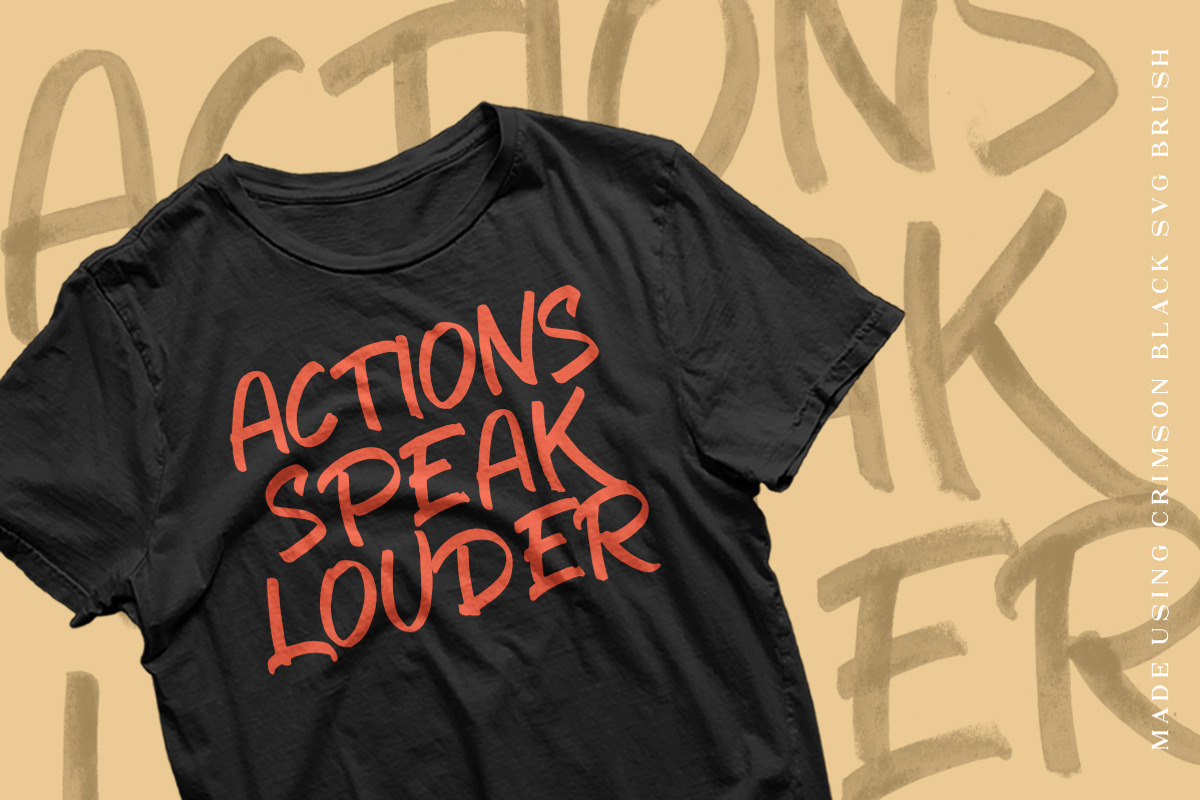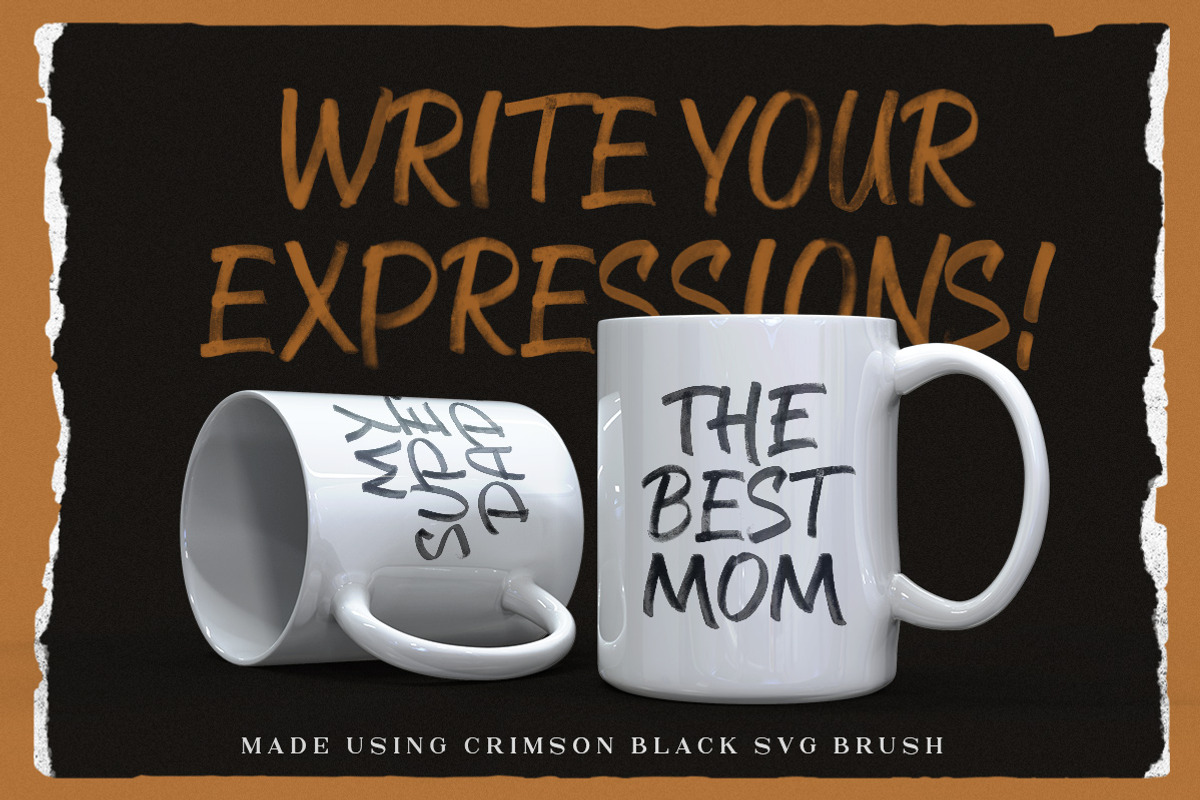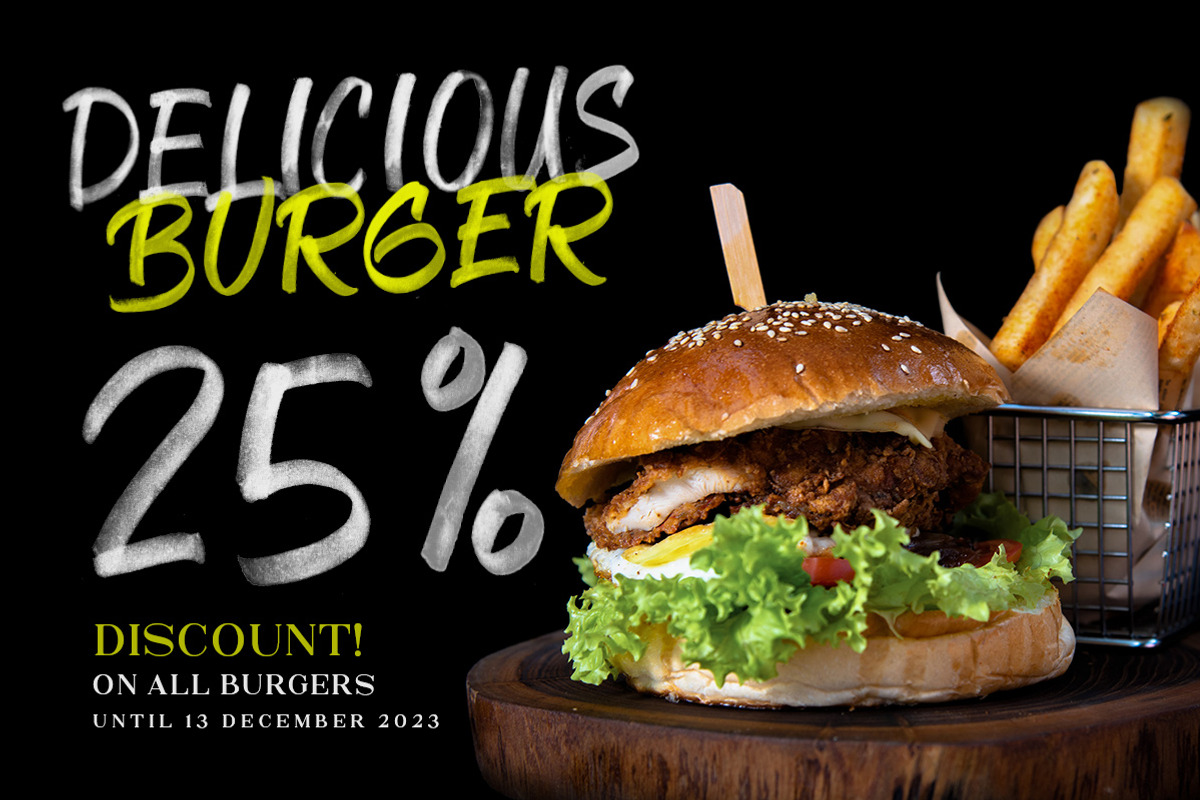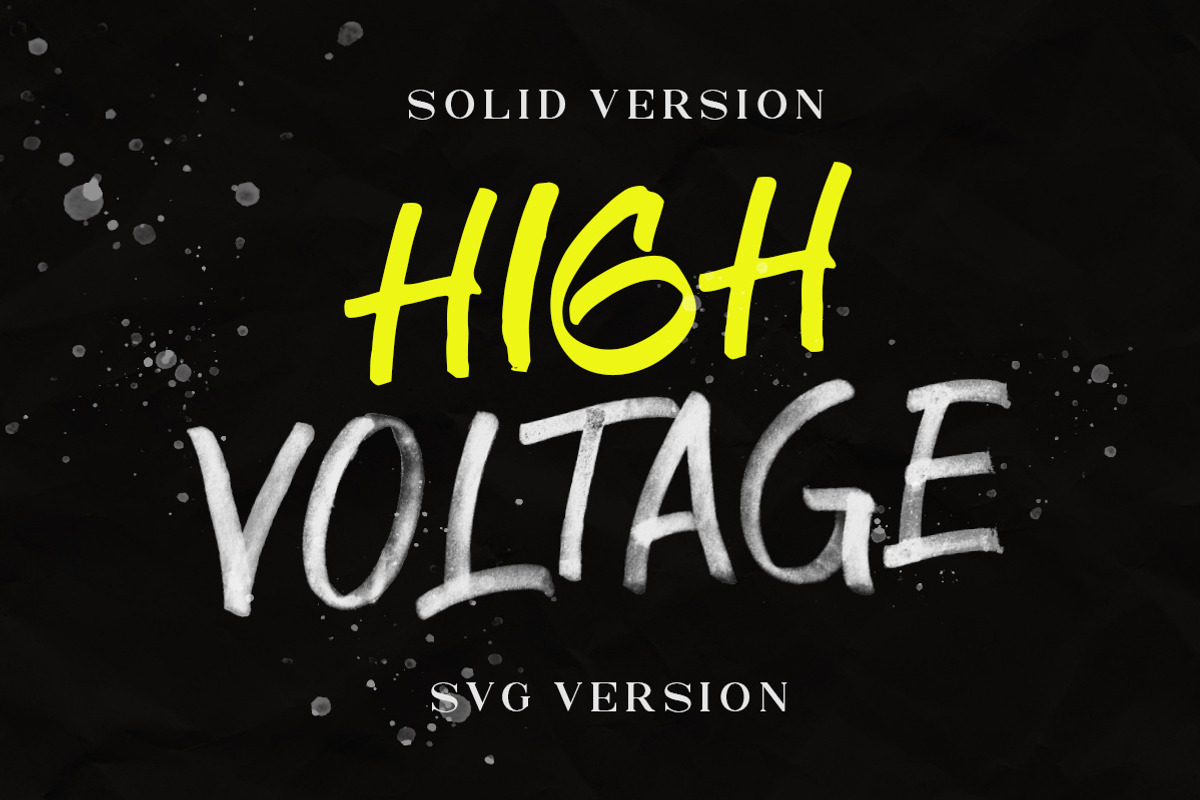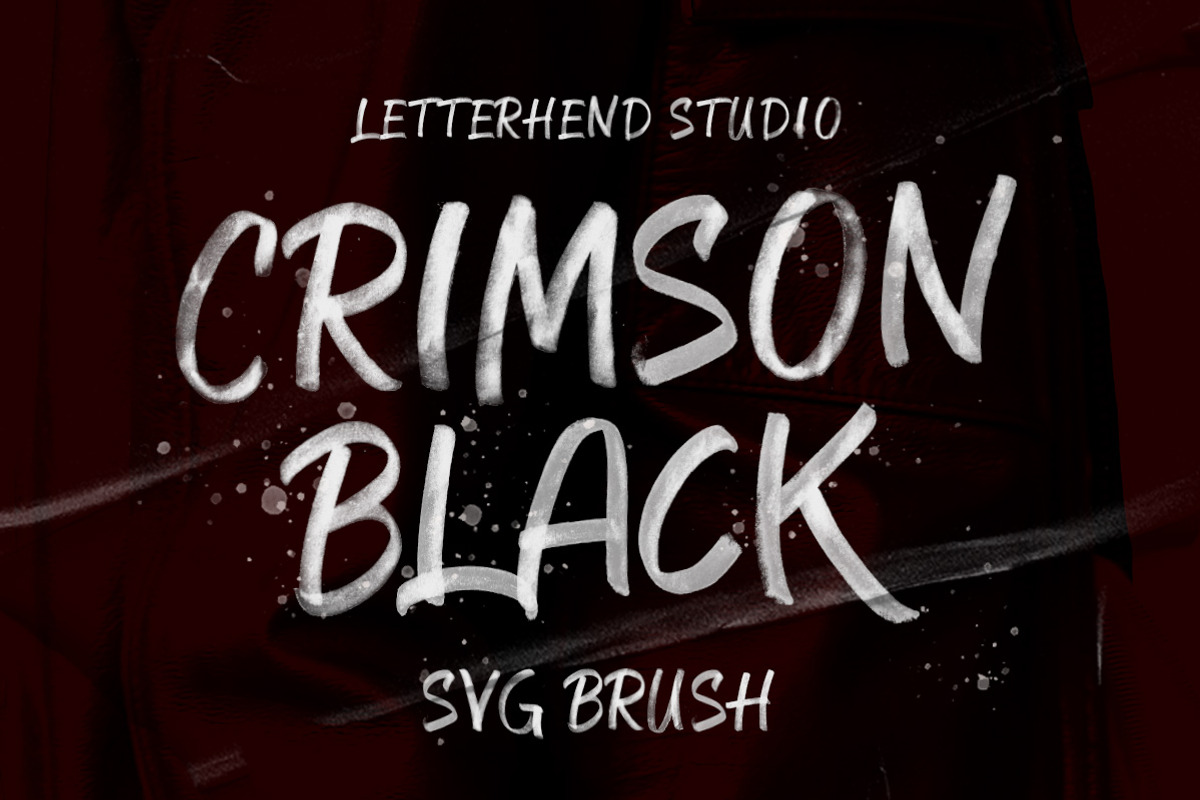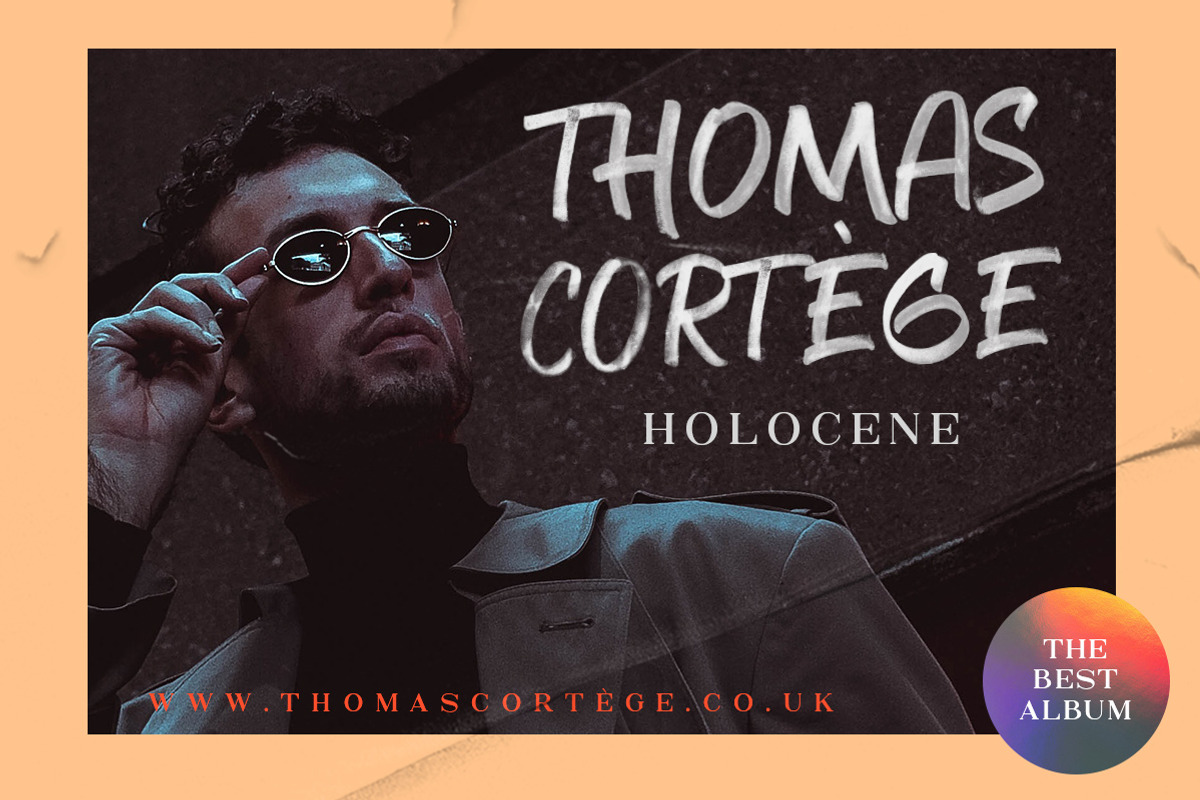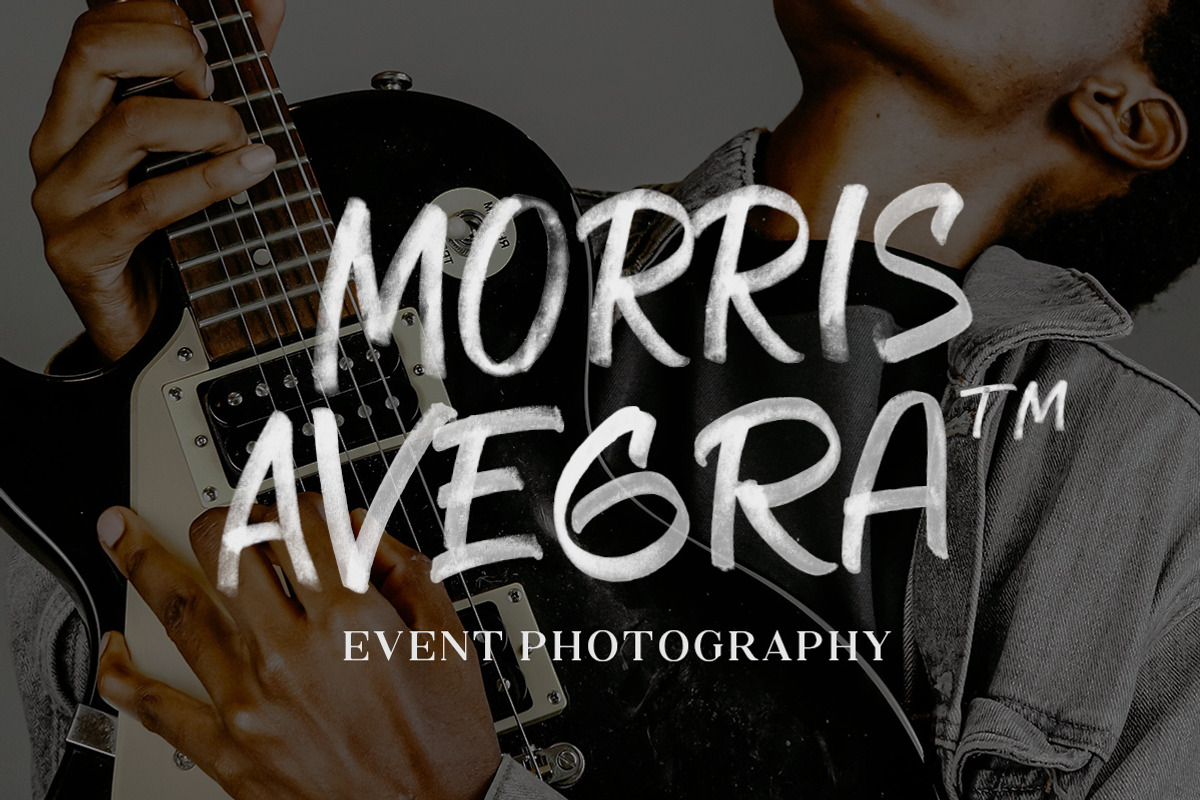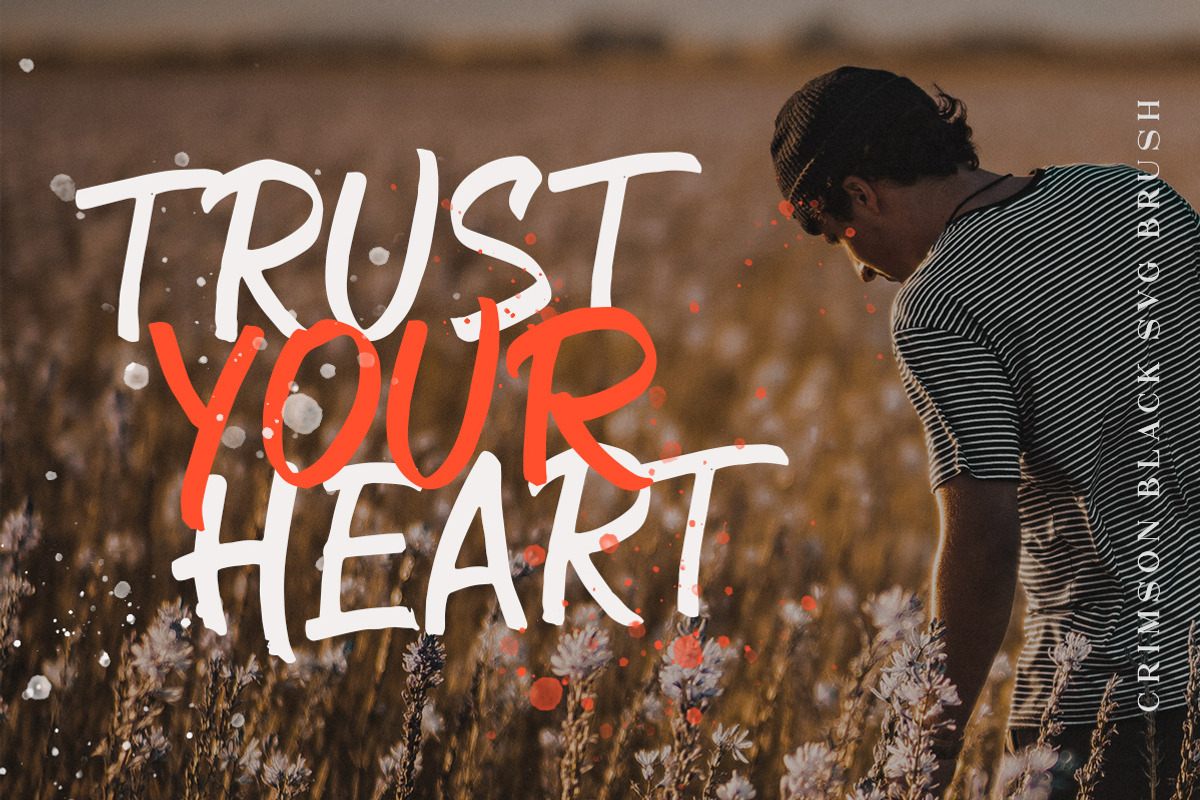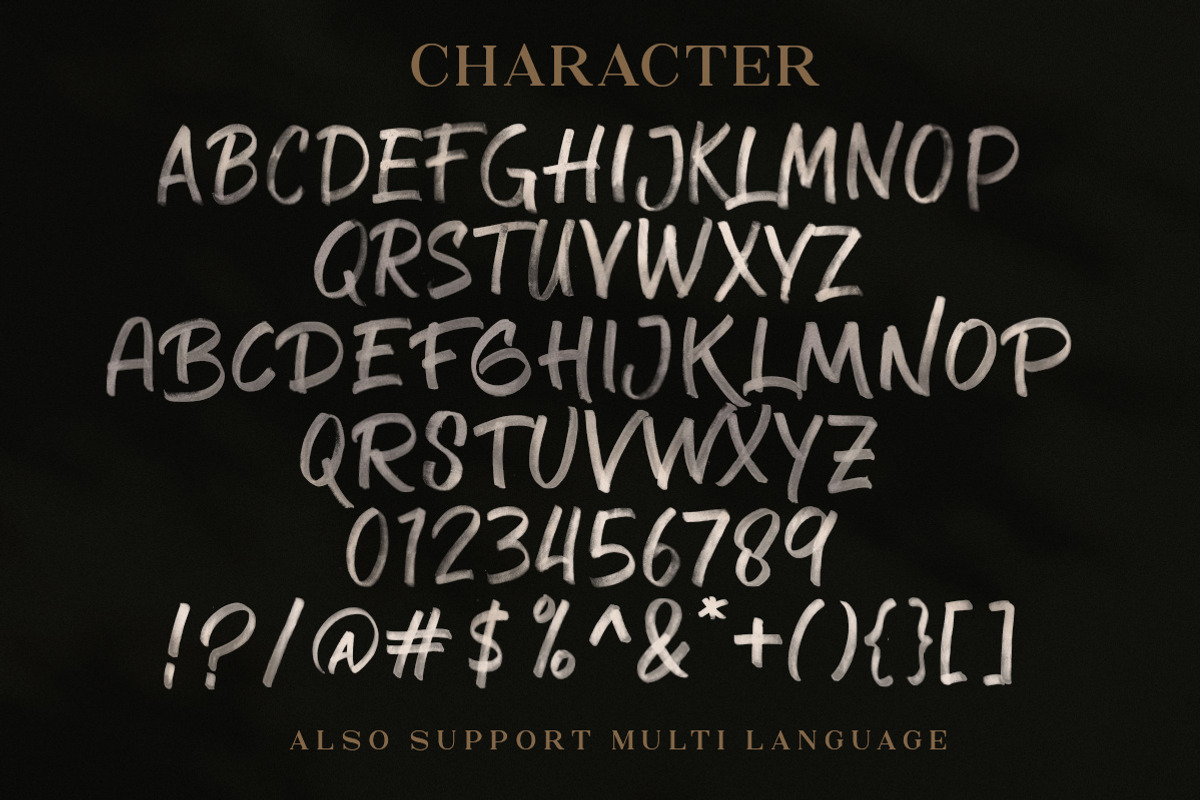
CRIMSON BLACK - SVG Brush Typeface
Introducing, Crimson Black - a textured SVG brush typeface. Available in two types, solid version and textured transparent version. This type of font perfectly made to be applied especially in headlines which is need a standout font, and the other various formal forms such as invitations, labels, logos, magazines, books, greeting / wedding cards, packaging, fashion, make up, stationery, novels, labels or any type of advertising purpose.
- Solid version and svg version